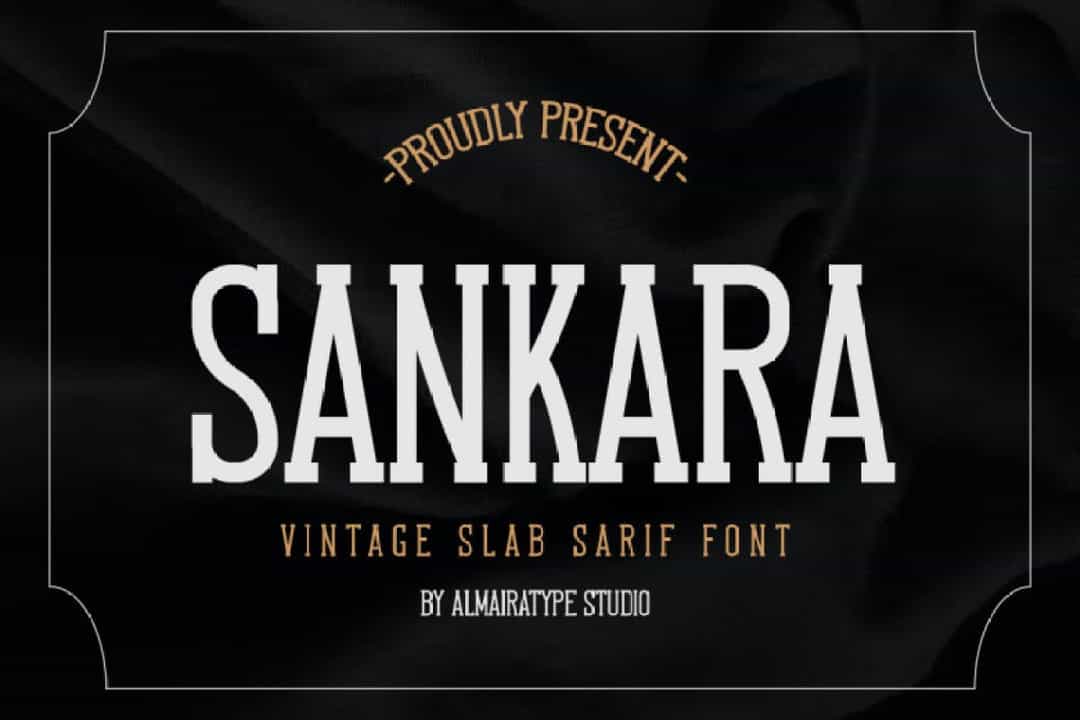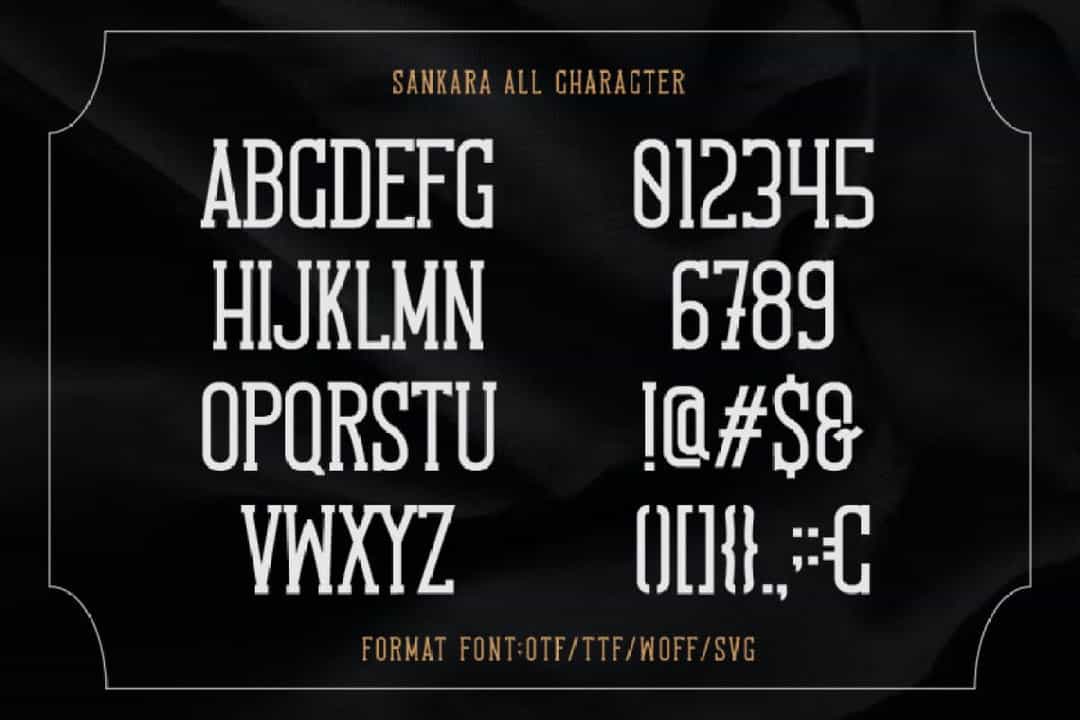
Sankara, It is an elegant and modern slab serif font with clean lines and strong serifs that exudes both elegance and versatility. Ideal for editorial design, branding or marketing use – perfect for editorial projects as well as digital advertising – its timeless yet contemporary appearance makes Sankara an attractive font choice with classical features that strike a balance between classical style and modernism. Versatility of Sankara combined with its elegant simplicity make it the ideal font choice for designers seeking an eye-catching font solution.